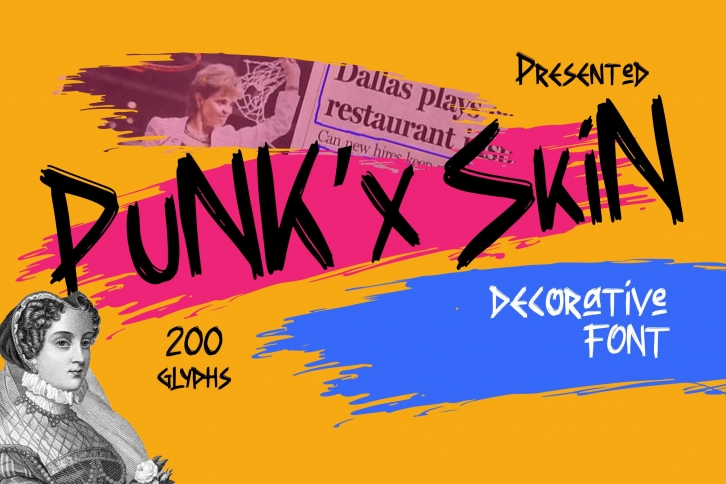
Punkx skin Font
This pair was inspired by music poster design that i saw on some coffee shop, It was crafted by hand specially to add natural handmade feeling in its brand identity than i make it clean with pentool.
Opentype features Punkx skin font has 200 character set included Punkx skin Font is very good looking in logo, labels, t-shirt prints, product packaging, invitations, advertising and others.